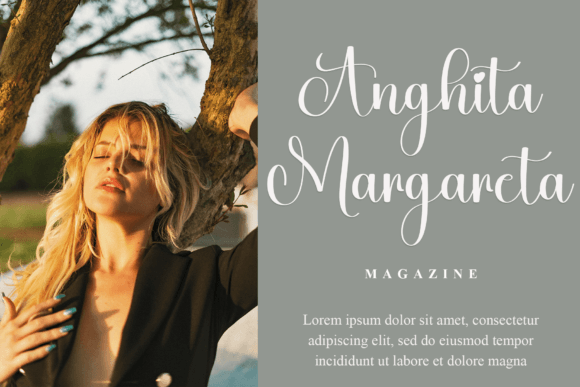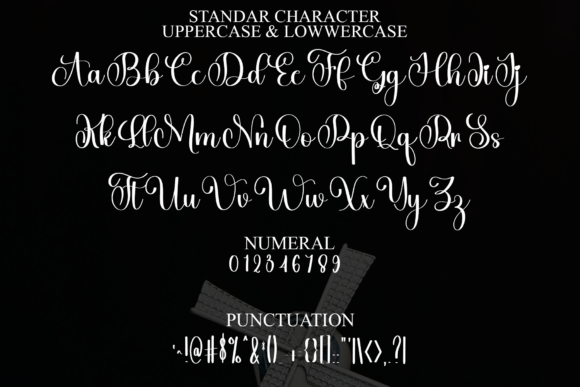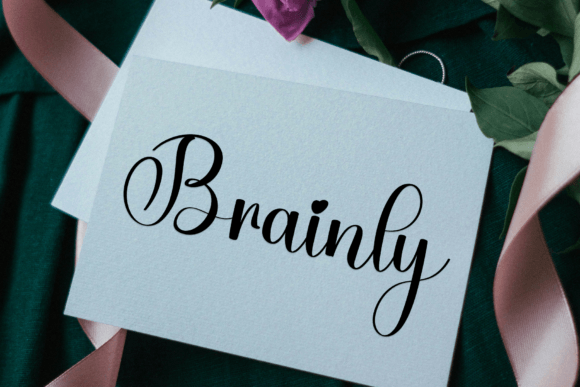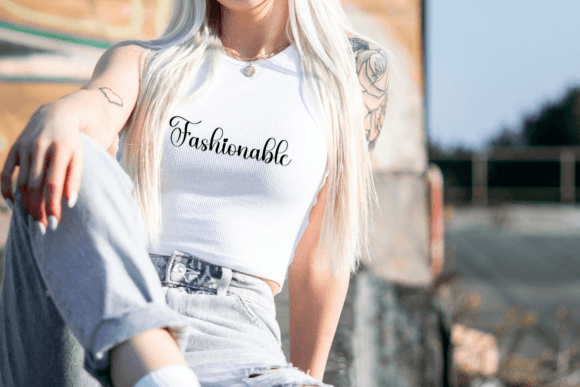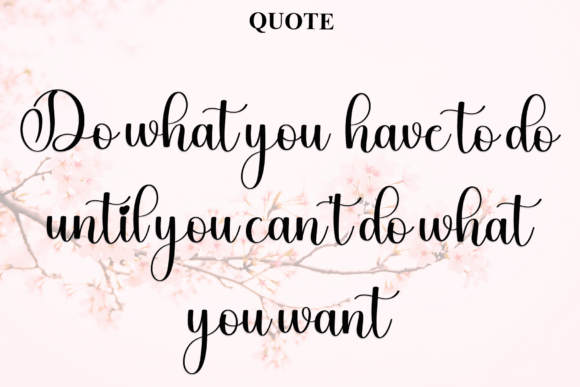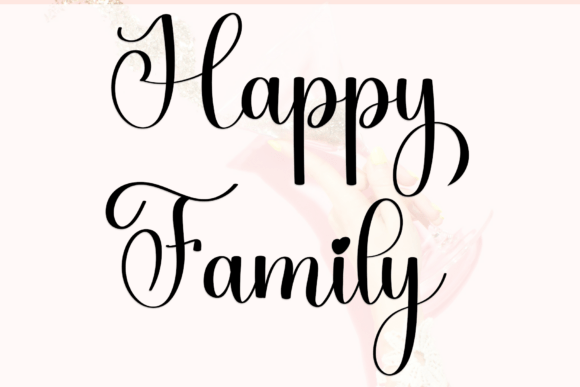
Introduction to Family Memories Font
Remember that special moment when you spent hours designing a birthday invitation for your little one, pouring your heart into making it perfect? As designers, we’ve all been there – crafting a design that not only reflects our creativity but also brings a smile to the faces of our loved ones. The Family Memories Font is one such design resource that can elevate your creative projects, adding a personal touch that makes them truly special.
This charming font is more than just a design element; it’s a way to express your love and care through your work. With its round, playful strokes, the Family Memories Font exudes warmth and friendliness, making it perfect for personal projects, invitations, and social media graphics. And the best part? It’s available for free download, making it an accessible high-quality design resource for designers of all levels.
Whether you’re working on a creative project with a transparent background or need a font that adds a unique touch to your design, the Family Memories Font is an excellent choice. Its hand-drawn aesthetic and standard PUA Encoded glyphs ensure seamless integration across various application engines, making it a valuable addition to your design toolkit.
Key Features of Family Memories Font
- High-quality design resource with a unique, cursive script style suitable for creative projects.
- Features a transparent background, making it easy to overlay on various backgrounds and images.
- Perfect for personal and professional use, ideal for creating family trees, photo albums, and other family-related projects.
- Unique characteristics include swashes, ligatures, and alternate characters, adding a touch of elegance to your creative project.
Honest Review: Family Memories Font
I recently had the chance to work with the Family Memories Font and I must say, it’s a great addition to any design project. The font itself is a high quality, versatile script that can be used for a wide range of creative projects, from wedding invitations to baby announcements.
Here are some of the things that work well with this font: ✨
- Easy to read, even in small font sizes
- Works well on both light and dark backgrounds
- Comes with a transparent background option, making it easy to customize
However, there are a few limitations to keep in mind: ⚠️
- The font is a bit on the cursive side, which may not be suitable for all design projects
- Some users may find the font to be a bit too playful for more formal designs
Overall, I was impressed with the Family Memories Font and would definitely consider using it again in the future. It’s a great design resource for anyone looking to add a personal touch to their creative projects.
How to Use Family Memories Font
Introduction to Family Memories Font
The Family Memories Font is a unique design resource that adds a personal touch to your creative project. With a transparent background, this high-quality font is perfect for adding a touch of nostalgia to your designs.
Tips for Getting the Most Out of Family Memories Font
To get the most out of the Family Memories Font, use it in combination with other design elements that evoke a sense of nostalgia, such as vintage images or distressed textures.
Common Use Cases for Family Memories Font
The Family Memories Font is perfect for:
Creating personalized invitations and party decorations
Designing family history books and photo albums
Adding a personal touch to your social media posts and blog articles